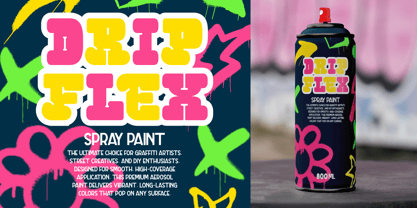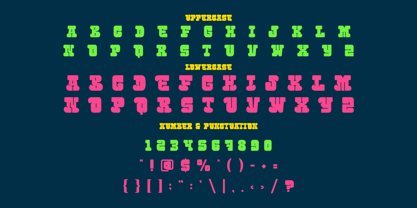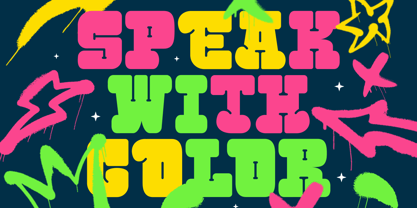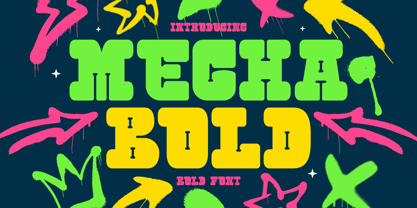
Mecha Bold
por Shanaf
La familia tipográfica Mecha Bold fue diseñada por Yesie Erma Yunita y publicada por Shanaf. Mecha Bold contiene 1 estilos. Más información sobre esta familia
Introducing Mecha Bold - Bold Font, a vibrant and energetic typeface designed for those who want to make a statement. This bold, slab-style display font brings a retro-futuristic vibe with its thick, rounded letterforms and industrial-inspired slab details. The combination of bright neon green and electric yellow against a dark navy background creates a high-contrast, eye-catching appeal. Complemented by graffiti-style arrows, stars, and splashes, Mecha Bold exudes a youthful, street-art energy that makes it perfect for urban branding, music covers, social media graphics, posters, and merchandise. The bold, chunky aesthetic ensures that every word stands out, making it a great choice for logos, packaging, and advertising that need a fun yet impactful touch.
Designed to be playful yet assertive, Mecha Bold is inspired by pop culture, graffiti art, and retro gaming aesthetics. This font works effortlessly for branding, apparel designs, YouTube thumbnails, stickers, and editorial layouts. The smooth edges and slab-like terminals give it a modern yet nostalgic look, making it a go-to for creative projects that demand a funky, high-energy personality. If you’re looking for a bold and expressive font that can turn heads, Mecha Bold is the perfect choice to inject life into your designs.
Diseñadores: Yesie Erma Yunita
Fundición: Shanaf